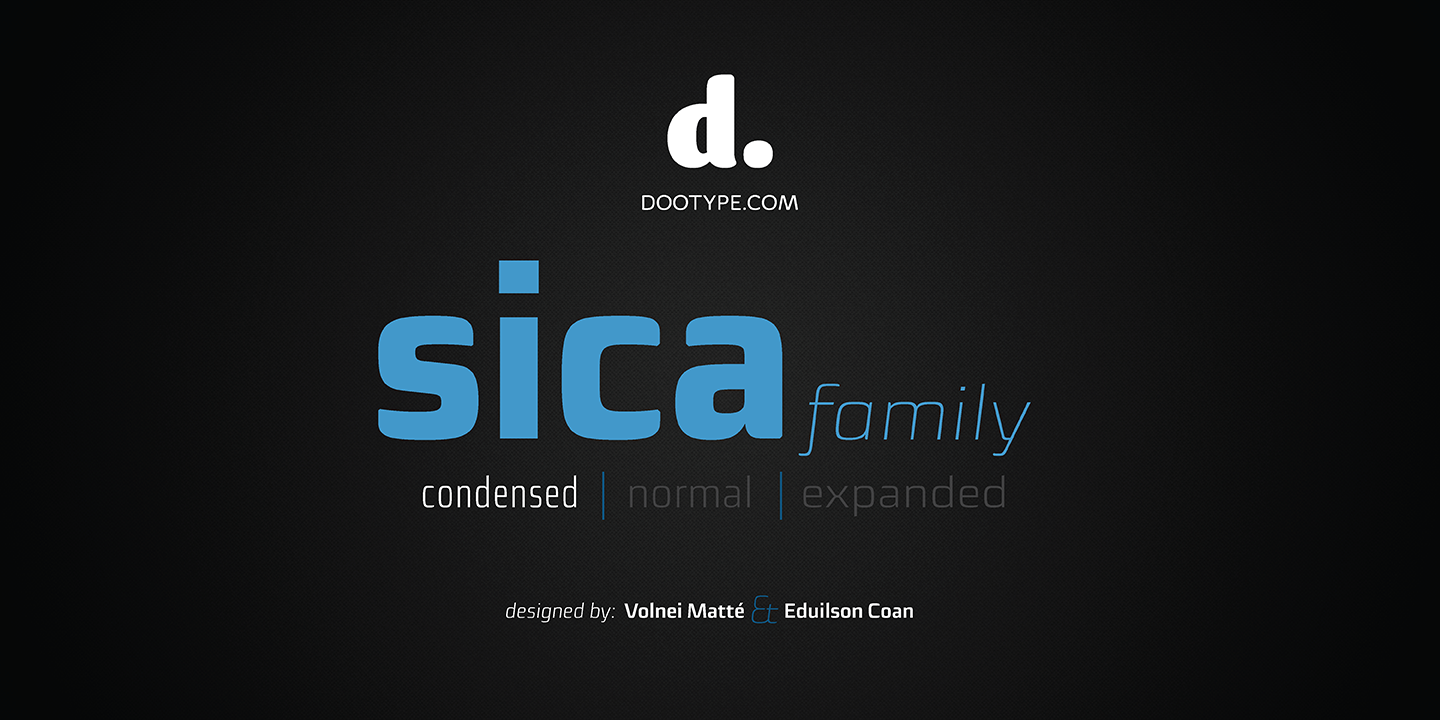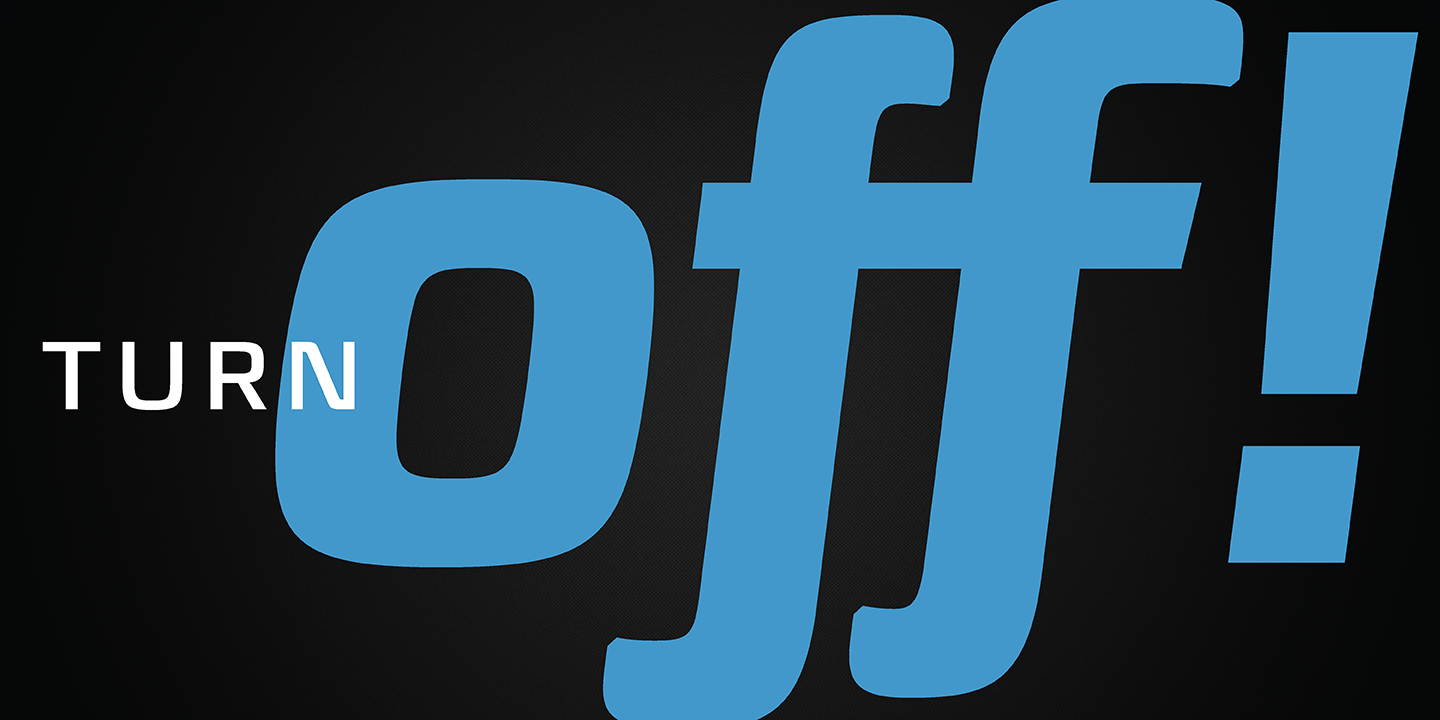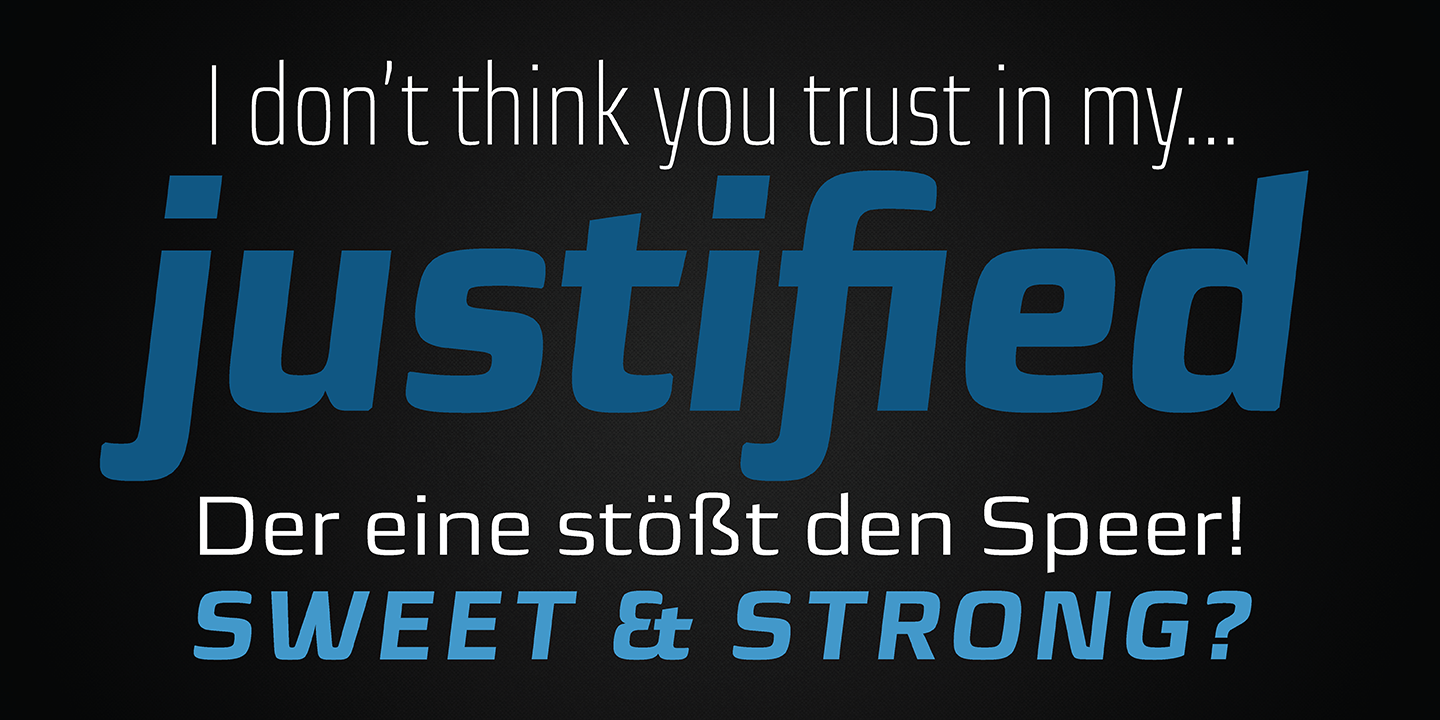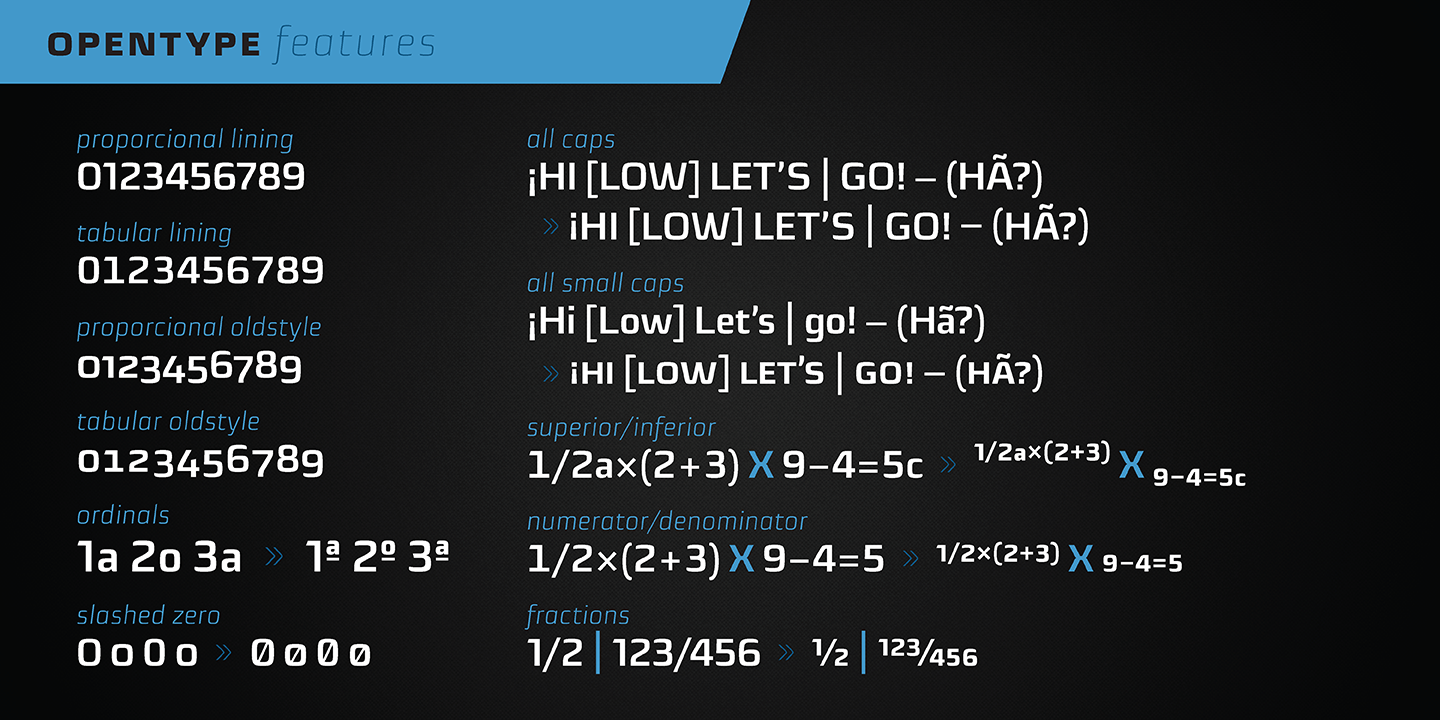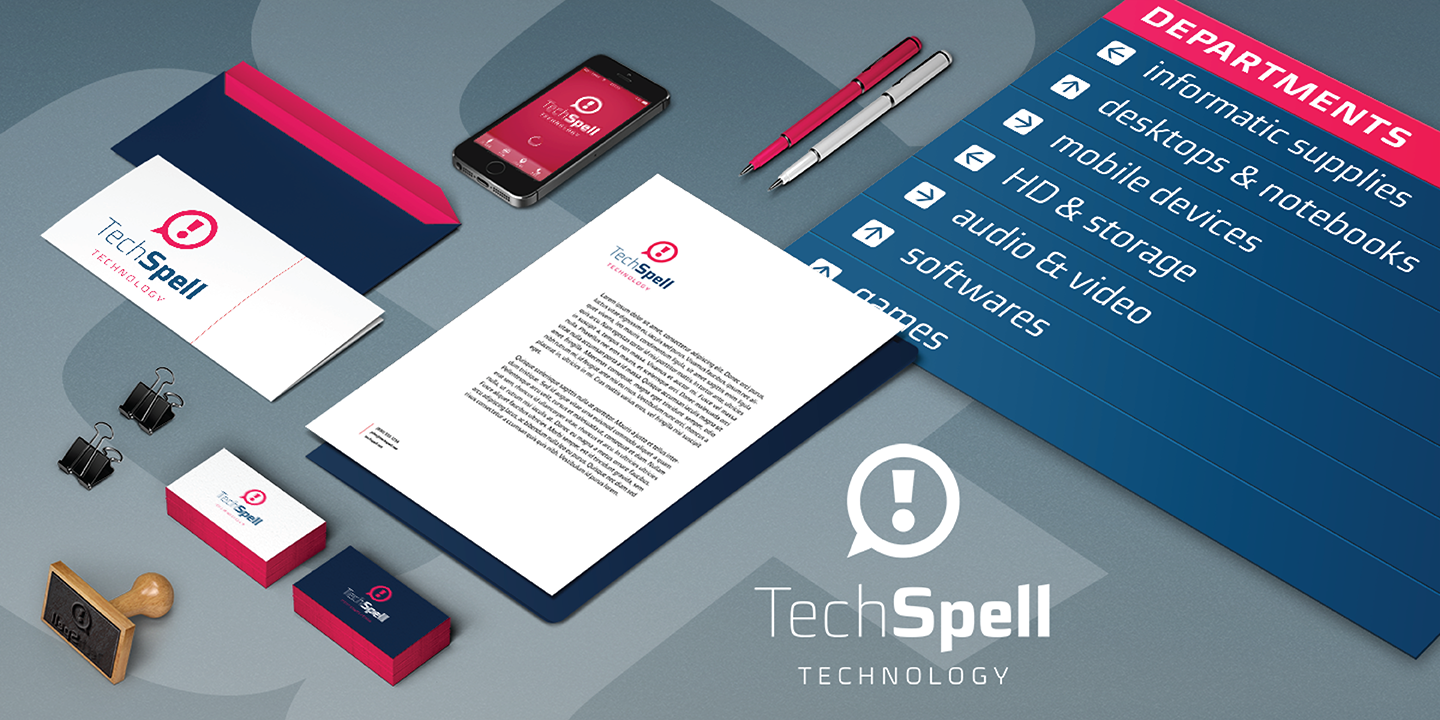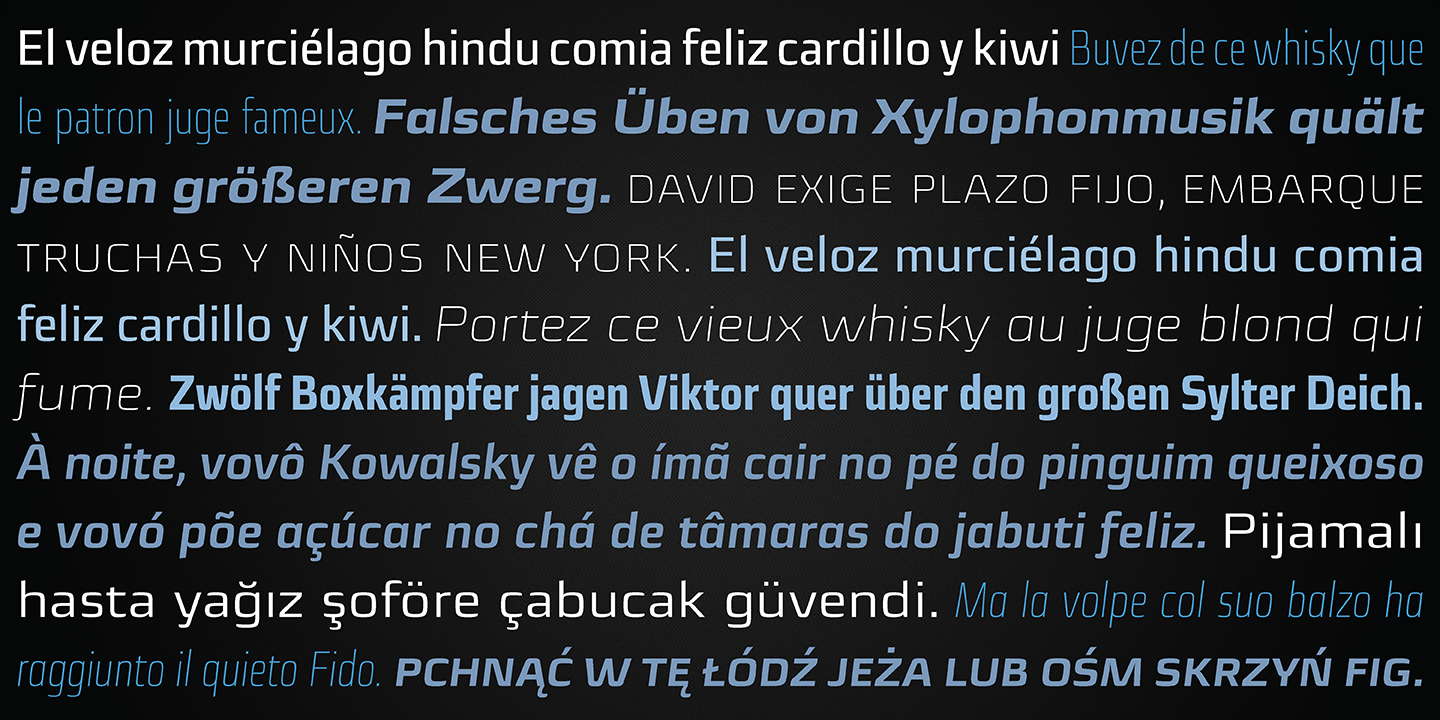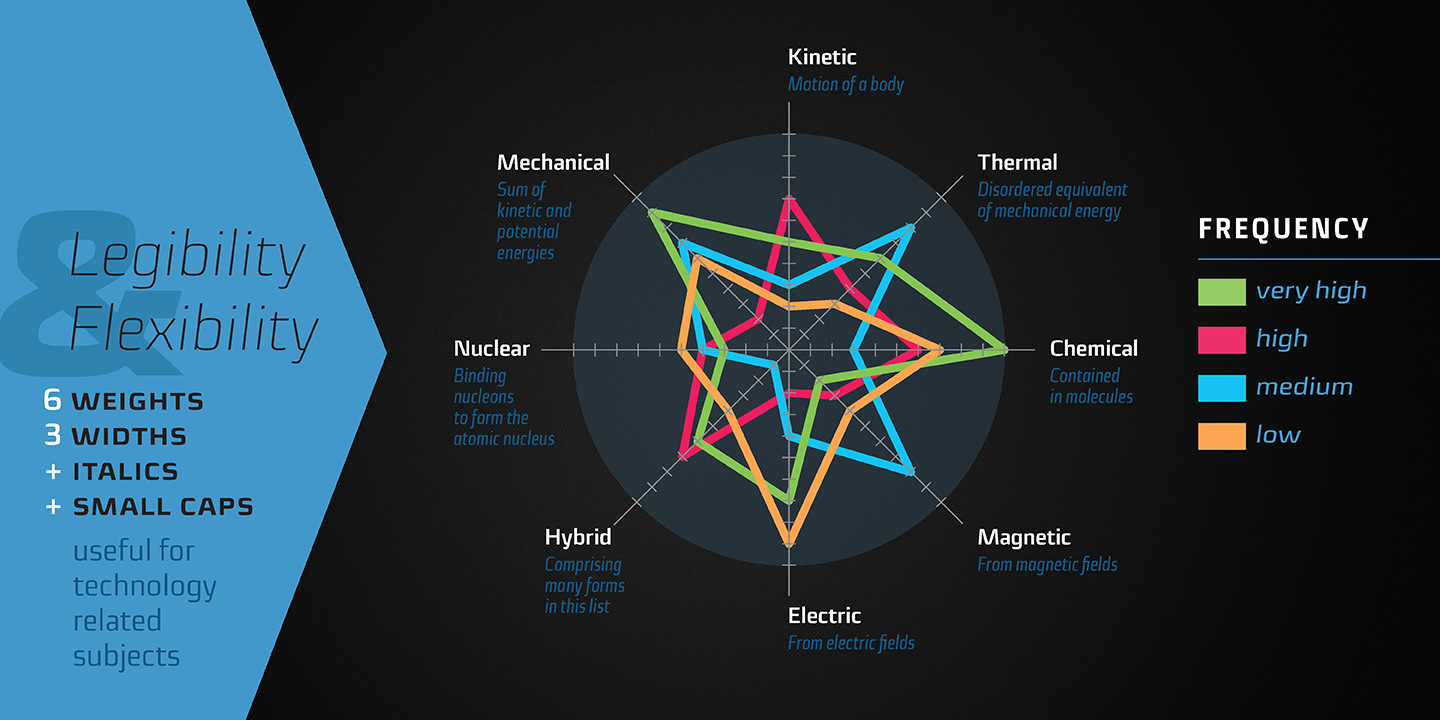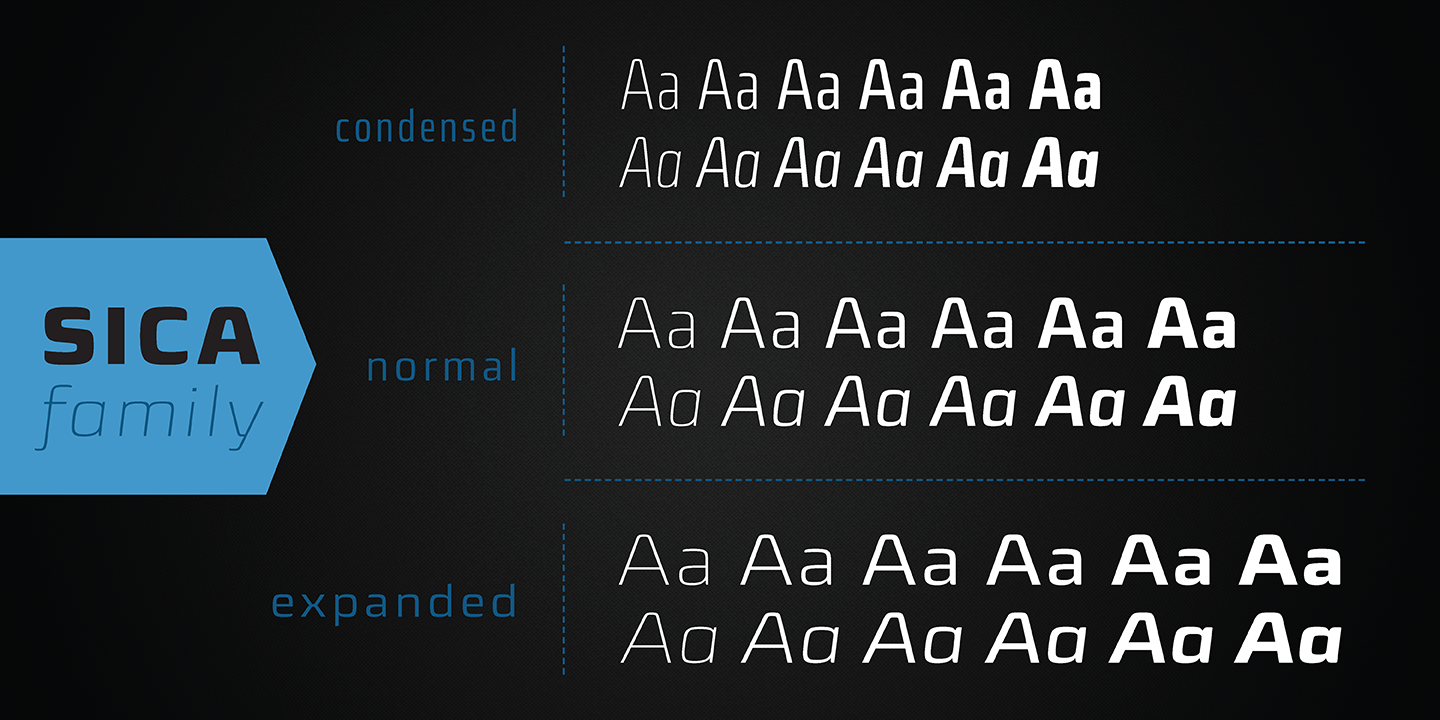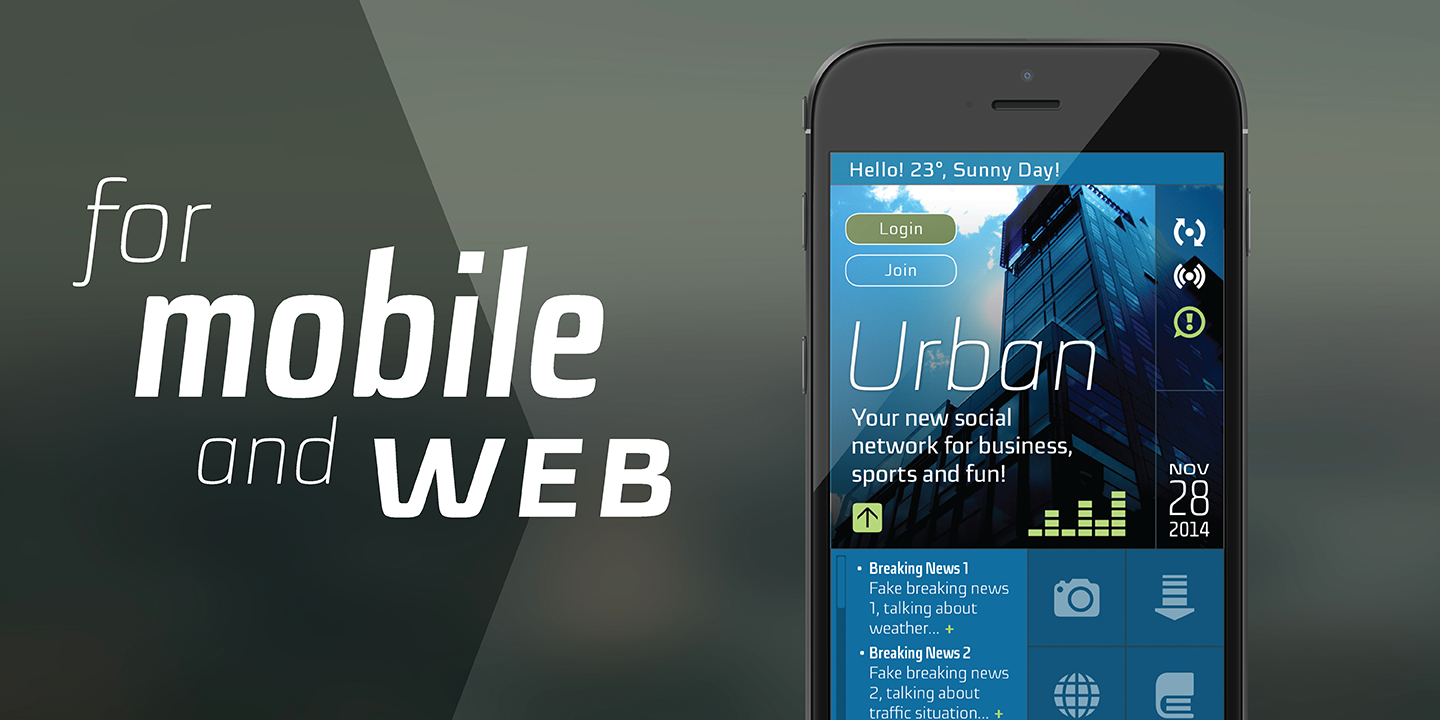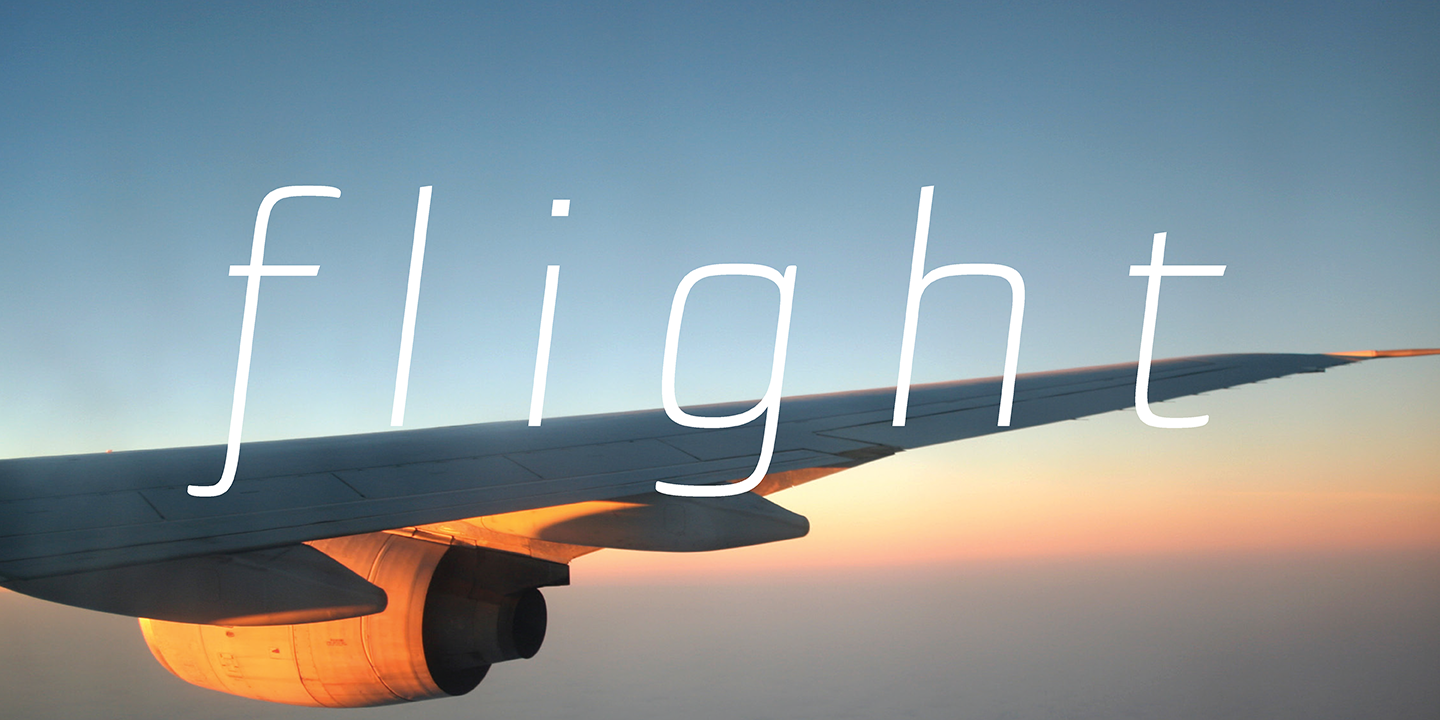
Sica Condensed Family (12 fonts)
The family has three widths – condensed, normal and expanded – each of them with six weights and their respective italics, resulting in 36 fonts. With particular details and open shapes that increase legibility, it can be used for both text compositions as well for display sizes. It has 774 glyphs, covering more than 50 languages, as well as ligatures, lining, oldstyle, tabular and proportional figures, fractions, superiors, inferiors, and small caps, all of them accessible through OpenType features.